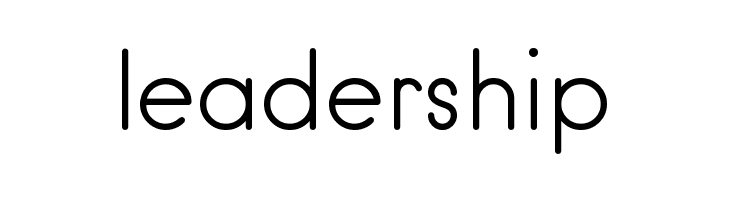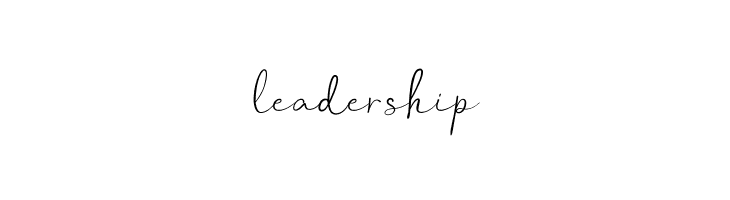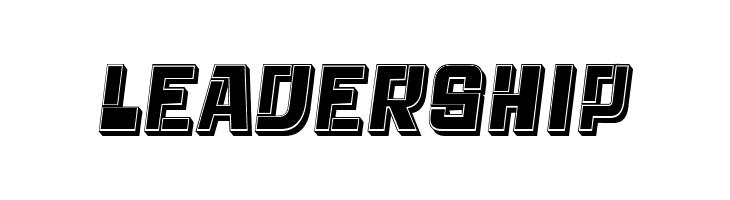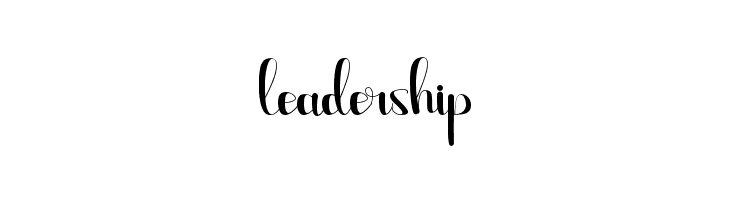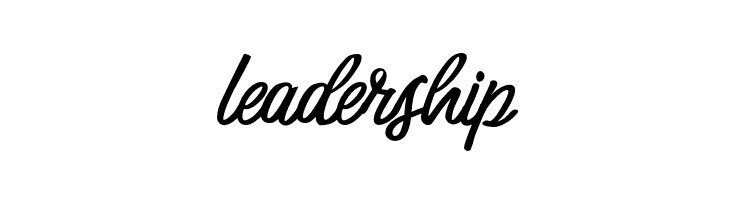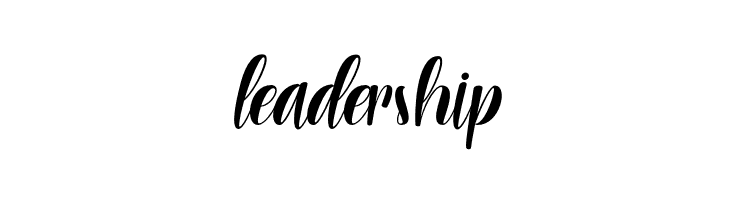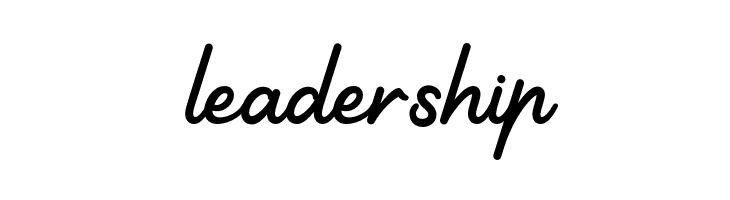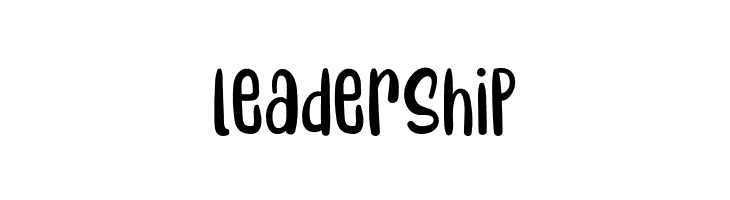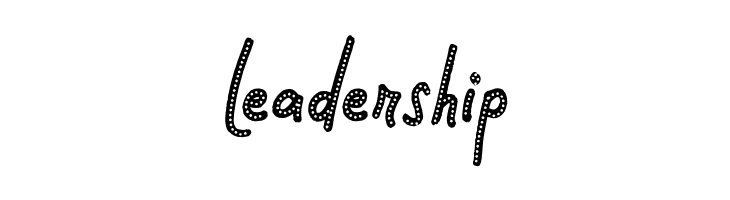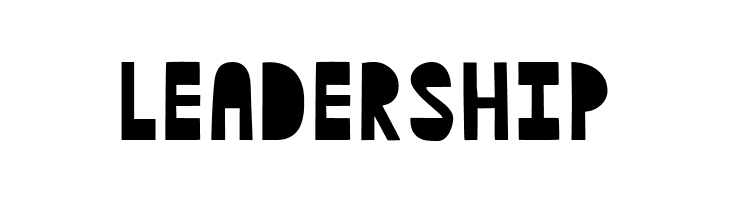
A modern, rounded font with a clean and approachable design.
Bold, rounded characters within black squares for a playful, modern look.
A decorative blackletter font with intricate, angular letterforms and historical elegance.
An elegant and flowing script font with graceful, fluid letterforms.
A playful, rounded font with smooth edges and a friendly style.
A playful, spooky handwritten font ideal for Halloween themes.
An elegant serif font with a classic italic style and smooth, flowing lines.
An elegant serif font with a classic italic style and high contrast.
An elegant serif font with italicized characters and medium contrast.
A classic serif typeface with an elegant italic slant and moderate contrast.
( Fonts by Des Gomez )
A playful, hand-drawn font with tall, narrow characters and a whimsical style.
A playful, dotted outline font with a hand-drawn, whimsical style.
A playful, dotted outline font with a whimsical, handwritten style.
( Fonts by Des Gomez )
A playful, hand-drawn font with quirky, irregular strokes and a whimsical style.
A bold, flowing script font with interconnected characters and a sophisticated style.
A bold, flowing script font with elegant, connected letterforms.
A bold, graffiti-inspired font with sharp, angular lines and an energetic style.
A bold, three-dimensional font with a geometric and modern style.
A bold, geometric font with artistic flair and dynamic shapes.
( Fonts by fey design )
A bold, decorative font with modern and playful elements.
A bold, decorative font with modern flair and dynamic strokes.
An elegant script font with graceful curves and refined details.
Elegant script font with flowing curves and high contrast.
A playful and whimsical script font with fluid, interconnected letterforms.
A flowing cursive font with elegant, connected letters and a calligraphic style.
A flowing, cursive font with elegant, connected letters and moderate stroke contrast.
( Fonts by Ikrar Bey Khubaib )
A bold, expressive script font with a dynamic, handwritten style.
A playful, handwritten font with a whimsical and friendly style.
An elegant and flowing script font with graceful curves and refined flourishes.
A playful, rounded font with a hand-drawn, whimsical style.
A playful, casual handwritten font with rounded, smooth letterforms.
A modern, dotted decorative font with a playful and unique style.
( Martha May Designs )
A playful, hand-drawn font with a whimsical and friendly appearance.